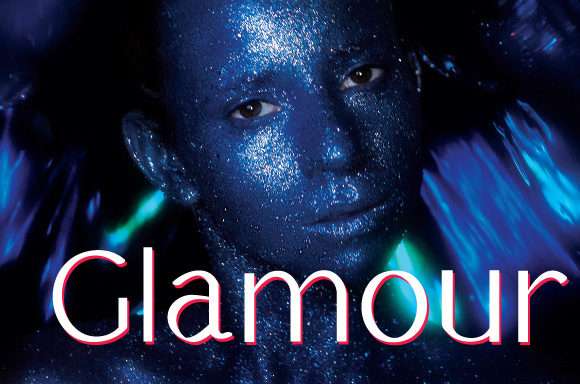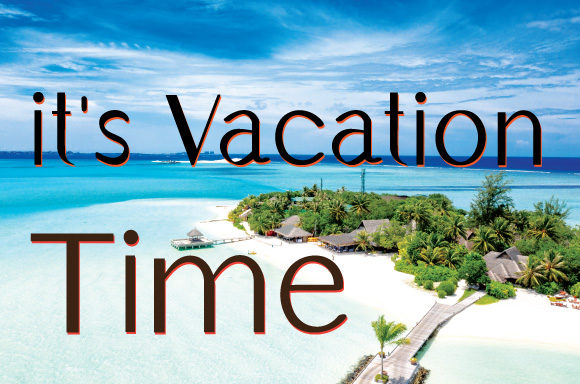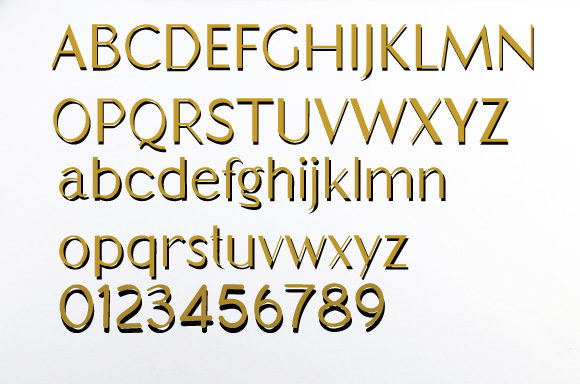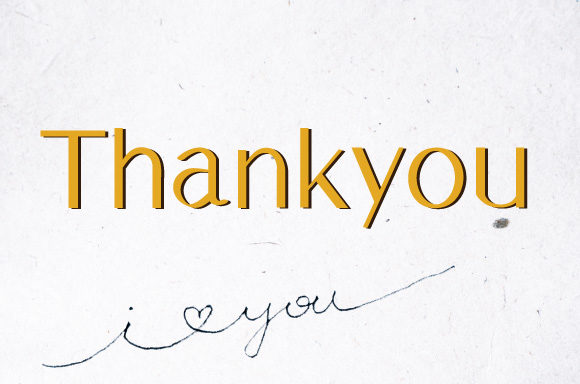
The Perfect Typography Companion: Glorynight Font
There’s nothing quite like the thrill of seeing a design come together – the colors, the layout, the text. It’s a moment of pure creativity, and one that’s often sparked by the perfect font. For designers, the right typography can elevate a project from good to great, and that’s exactly what the Glorynight Font aims to do.
Glorynight Font is a stylish and clean sans serif font, designed to add a touch of sophistication to any project. Whether you’re working on a brochure, a website, or a social media campaign, this font has the potential to take your creations to the next level. Its versatility and elegance make it an incredibly valuable asset to any designer’s library, and a must-have for anyone looking to add a little extra flair to their work.
Glorynight Font Key Features
- Font Family: Glorynight, Glorynight Regular, Glorynight Italic, Glorynight Bold, Glorynight Bold Italic
- Character Set: Latin, Cyrillic, Greek, and Extended Latin characters
- Unique Characteristics: Distinctive, elegant, and modern design with intricate details and ornate flourishes; ideal for titles, headings, and decorative text
Glorynight Font Review
Overall, I have mixed feelings about the Glorynight font. On one hand, there are some aspects that shine ✨.
- Unique aesthetic: Glorynight font offers a distinctive look that can help your design stand out.
- Good for title and headings: Its bold and striking appearance makes it ideal for use in titles, headings, and other prominent text elements.
- Supports a wide range of languages: The font has a decent language support, which is essential for projects that require multilingual content.
However, there are also some limitations to consider ⚠️.
- Readability issues: At smaller font sizes, the font can become difficult to read, especially for body text.
- Not suitable for large blocks of text: The font’s boldness can make it hard on the eyes when used extensively in large paragraphs.
- Lack of fine-tuning options: Limited font pairing and customization options can restrict the font’s versatility.
Considering its pros and cons, I would say that the Glorynight font is best suited for projects that require a striking, attention-grabbing title or heading. Its limitations should be taken into account when deciding whether to use it for larger blocks of text or as a primary font.
Glorynight Font is ideal for creating elegant and sophisticated designs, such as:
– Luxury brand logos and packaging
– High-end marketing materials and advertising
– Elegant typography and quotes
Alternatives to Glorynight Font
Playfair Display is a luxurious and elegant serif font ideal for high-end branding, luxury products, and formal invitations. Its refined look makes it perfect for creating a sense of sophistication and grandeur. Compared to Glorynight Font, Playfair Display is more refined and has a more classic feel, making it suitable for traditional and formal designs.
Great Vibes is a modern script font perfect for creative and artistic projects, such as posters, logos, and packaging. Its flowing lines and elegant feel make it ideal for designs that require a touch of sophistication and playfulness. Compared to Glorynight Font, Great Vibes has a more fluid and dynamic feel, making it suitable for designs that need a sense of movement and energy.
Lato is a clean and modern sans-serif font ideal for digital products, websites, and applications. Its simplicity and legibility make it perfect for designs that require a clear and concise message. Compared to Glorynight Font, Lato is more minimalist and has a more neutral feel, making it suitable for designs that need a clean and professional look.
Courier Prime
Courier Prime is a modern sans-serif font with a technical feel, perfect for designs that require a sense of innovation and futurism. Its clean lines and geometric shapes make it ideal for digital products, tech companies, and futuristic projects. Compared to Glorynight Font, Courier Prime has a more technical and futuristic feel, making it suitable for designs that need a sense of cutting-edge technology.